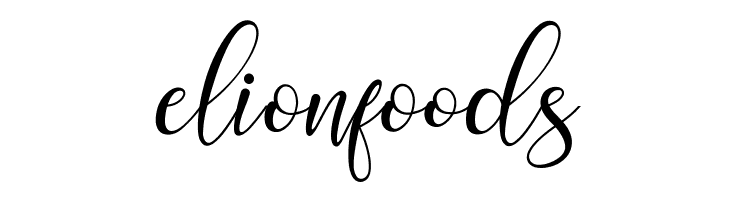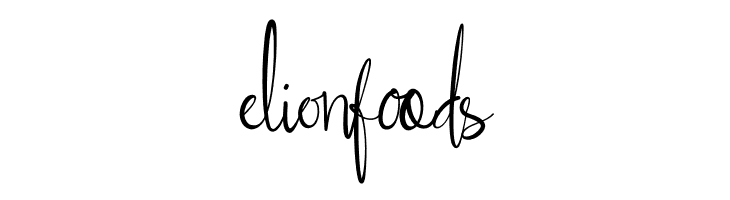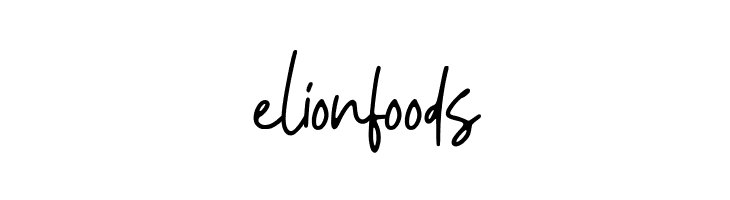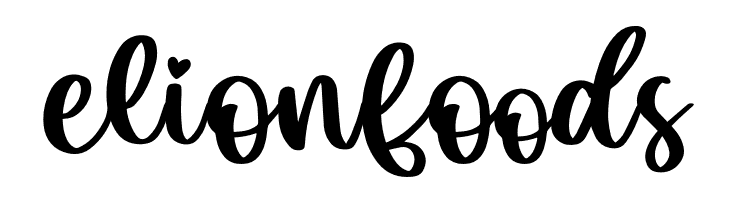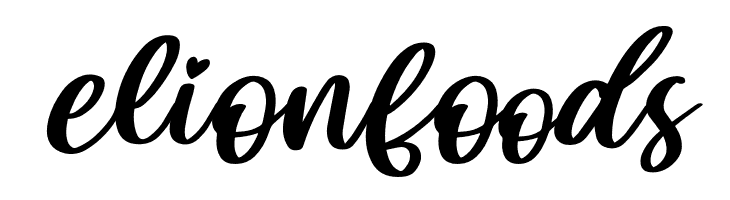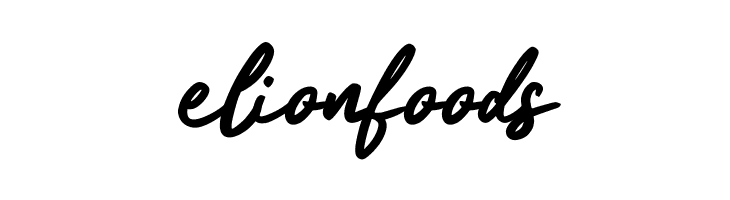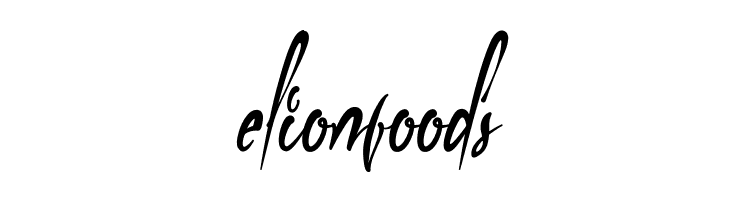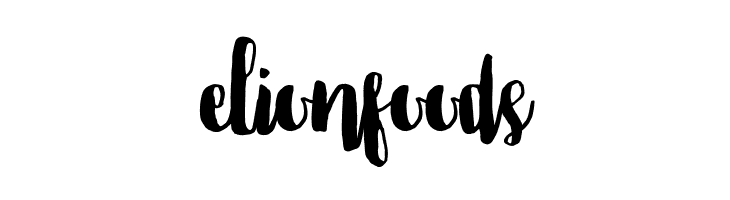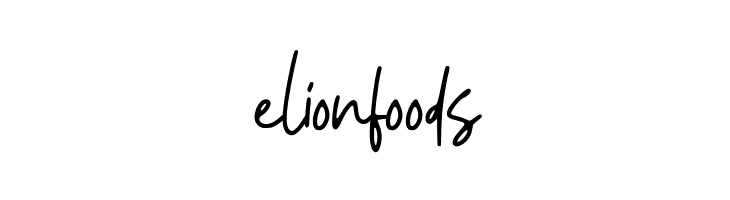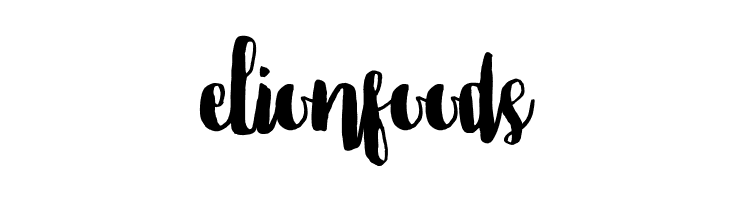
An elegant and flowing script font with smooth, cursive letterforms.
A bold, hand-painted style font with expressive brush-like strokes.
A bold, expressive handwritten font with brush-like strokes.
A bold, flowing script font with a handwritten style.
A modern, cursive script font with a bold, italic style.
A bold, expressive handwritten font with fluid, dynamic strokes.
A lively and expressive handwritten font with fluid strokes and dynamic character.
A playful, handwritten cursive font with elegant, flowing strokes.
A bold, hand-drawn font with dynamic, sweeping strokes.
A playful, whimsical handwritten font with flowing, cursive-like strokes.